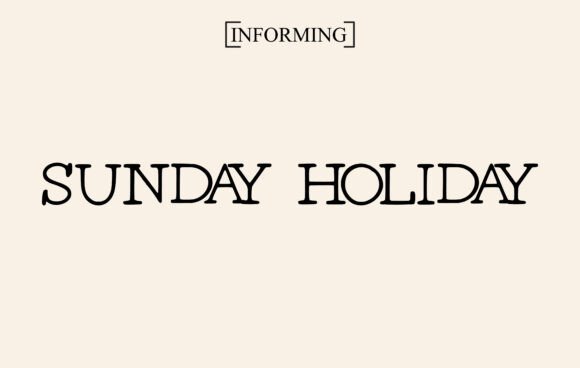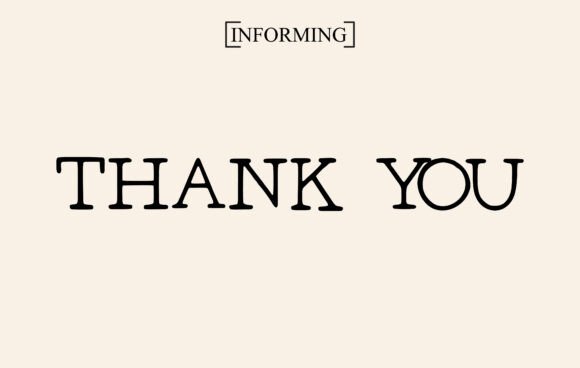
Amalia Font
This font is designed to be a true favorite and it has the potential to take your creative ideas to the highest level This font is legible and looks great as a title or body text. This font would be perfect for many different designs for magazine headlines, t-shirts, social media, branding, wedding invitations, cards, etc.